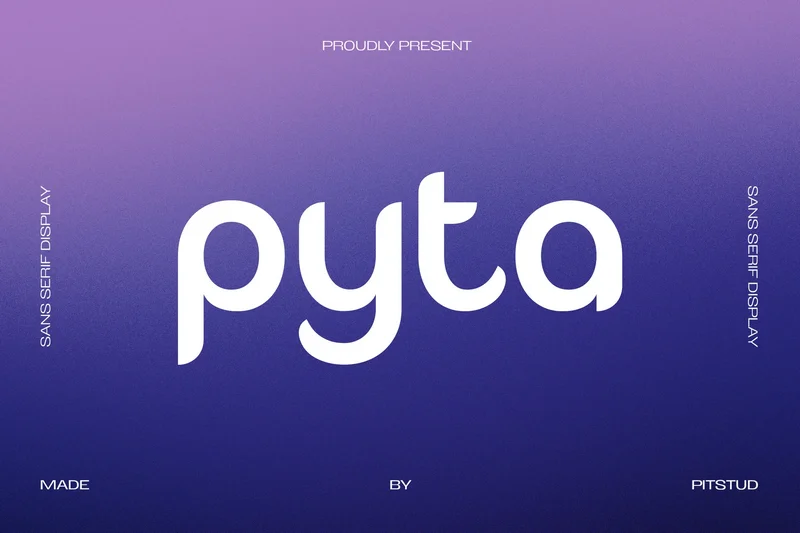
Pyta – Modern Technology Sans Serif
Pyta – Modern Sans Serif
Pyta – Modern Sans Serif is a clean and modern sans serif font designed to deliver clarity, style, and versatility to your creative projects. With its smooth curves, balanced proportions, and minimalistic appeal, Pyta offers a professional yet approachable look that fits seamlessly into a wide range of branding and design applications.
Perfect For Whether you’re crafting a startup brand identity, digital marketing campaign, or editorial headline, Pyta brings a fresh and contemporary feel to your work. Its geometric simplicity and crisp letterforms make it ideal for logos, product packaging, website design, posters, and modern advertising materials.
Font Features
Minimal & Timeless Design: A sans serif typeface with clean lines for effortless readability across print and digital media.
Complete Character Set: Uppercase, lowercase, numbers, punctuation, and symbols.
OpenType Features: Access ligatures, alternates, and stylistic sets for creative flexibility.
Pyta combines modern minimalism and smooth aesthetics to create a typeface that feels both stylish and functional. Whether you’re designing for branding, editorial layouts, or digital platforms, Pyta adapts effortlessly and enhances your visual presentation.
Perfect For
Brand Identity: Give your business a clean, modern voice.
Digital Design: Ideal for websites, apps, and online campaigns.
Editorial Use: Create impactful magazine covers and layouts.
Event Materials: Perfect for posters, flyers, and signage.
Logo Design: Establish a unique and contemporary signature style.